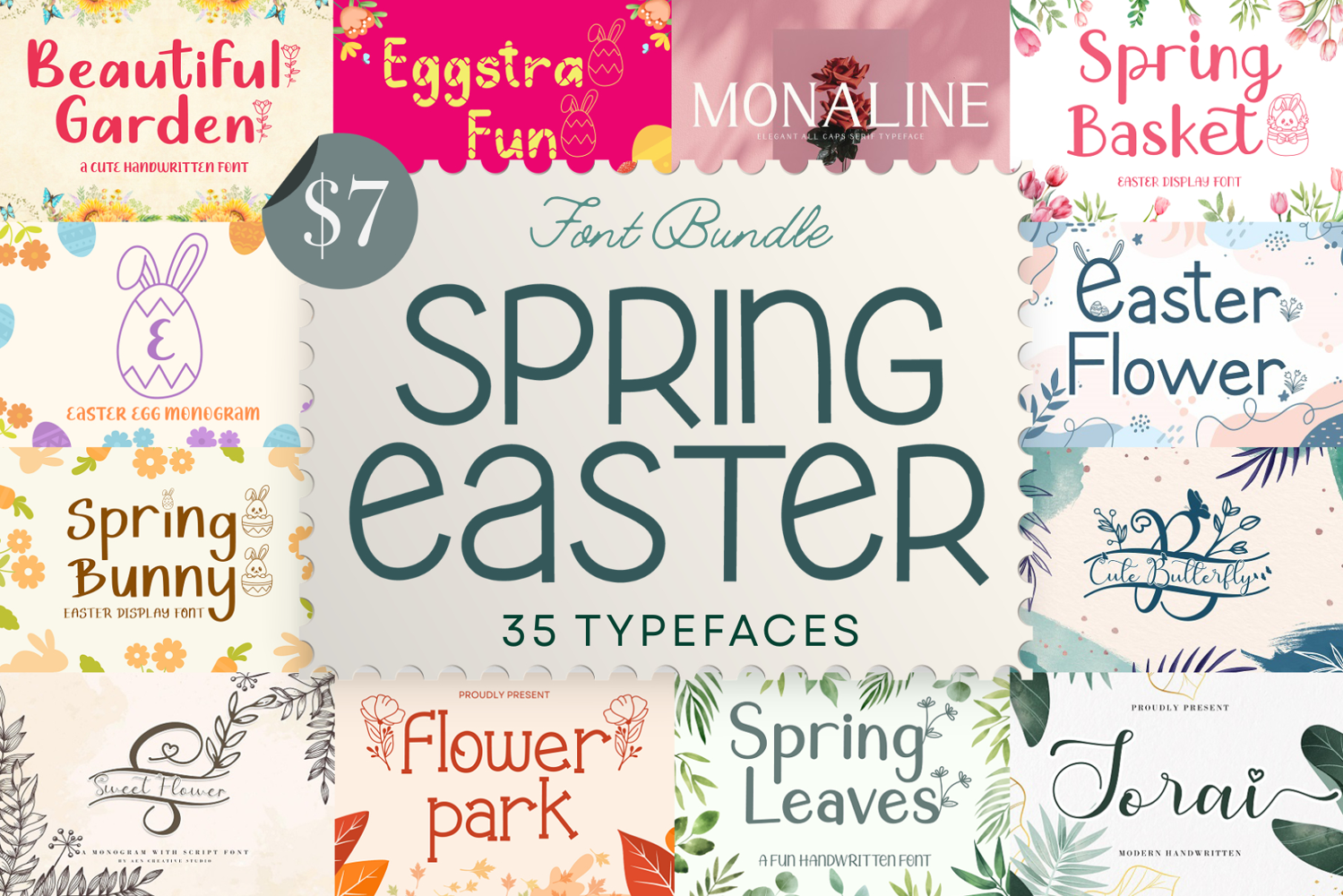
Spring Easter Font Bundle
Sarilla Script
Janiella
Lathi
Levina Monogram
Levina Script
Marqana
Miatta
Monaline
Monallesia Monogram
Monallesia Script
Romantic Spring
Flower Park
Sorai
Spring Basket
Spring Bunny
Spring Egg
Spring Leaves
Sunny Easter
Sweet Allita
Sweet Flower Monogram
Sweet Flower Script Regular
Briamitta
Allesia
Allitta Calligraphy
Amanilla
Amillina Monogram
Amillina
Aynilla
Beautiful Garden
Benalla
Benilla Calligraphy
Benilla Monogram
Benillia
Cute Butterfly Monogram
Cute Butterfly
Easter Egg Monogram
Easter Flower
Easter Joy
Easter Moment
Easter Sweet
Eggstra Fun
Available exclusively on Font Bundles, this Spring Easter Font Bundle is a thoughtfully curated collection of fonts inspired by the freshness of spring and the joyful charm of Easter. This bundle brings together a variety of styles — from playful handwritten scripts to elegant display and decorative letterforms — designed to complement seasonal projects with warmth and personality.
Inspired by blooming flowers, soft pastel palettes, Easter eggs, and light-hearted celebrations, each font in this collection is crafted to add a gentle seasonal touch without feeling overly themed. The versatility of the styles makes them suitable not only for Easter designs, but also for spring branding, invitations, packaging, social media graphics, crafting projects, and more.